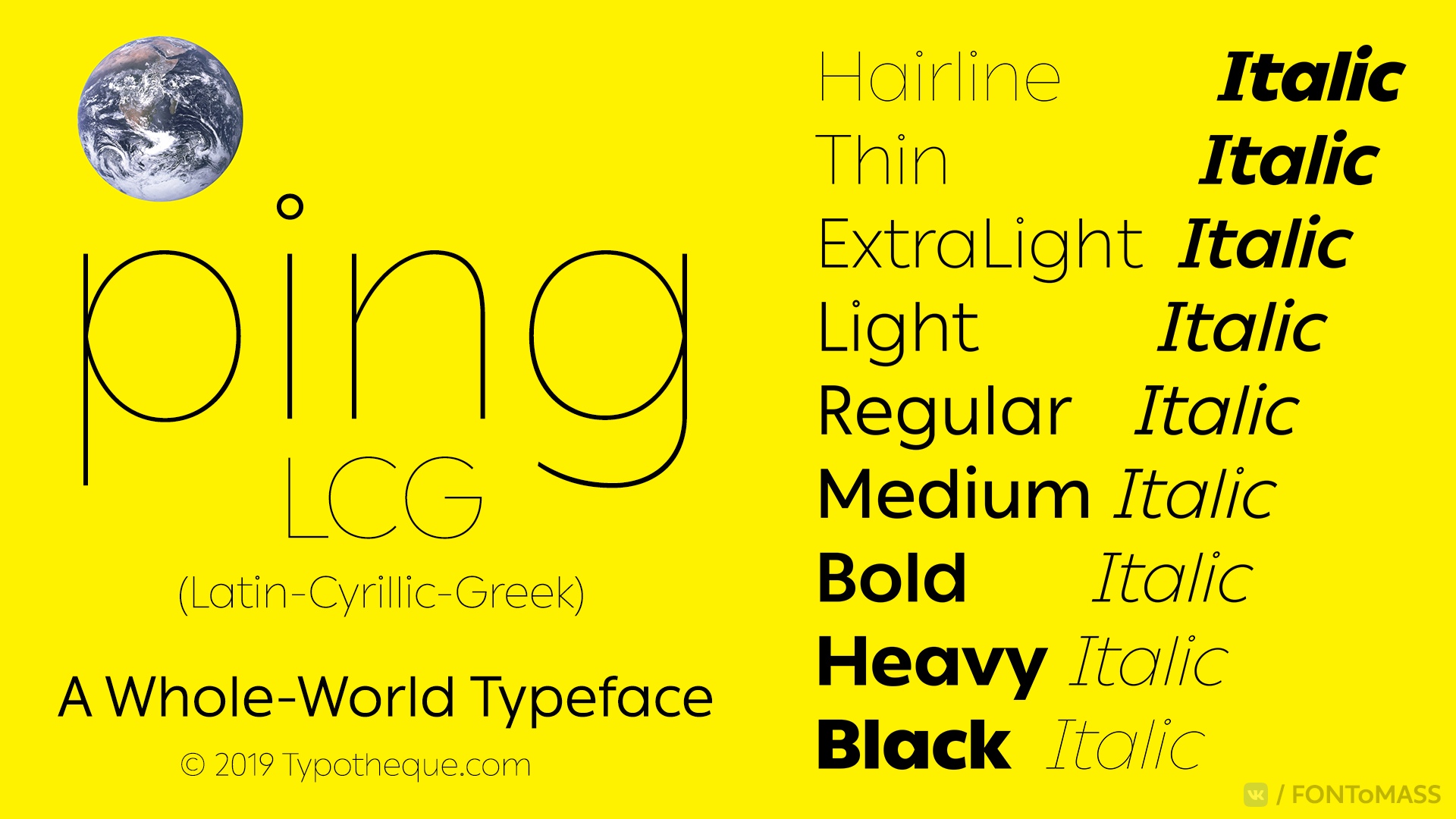
Ping LCG Font
Ping LCG Font is perfect for tech startups, gaming brands, digital interfaces, software applications, esports logos, coding environments, mobile app design, futuristic branding, interactive media, and cutting-edge technology communications.
Ping LCG Font is exciting because it captures the essence of digital innovation with its sharp, precise letterforms and high-tech aesthetic that perfectly embodies the fast-paced world of modern technology and gaming culture. Its dynamic character design combines technical precision with digital energy, making it ideal for brands that want to communicate speed, accuracy, and technological excellence.
The Ping LCG Font family includes Light, Regular, Medium, Bold, Extra Bold weights, matching Italic variations, Mono versions, Display styles, Tech alternates, and Digital elements, providing designers with comprehensive tools for creating modern technology brands that resonate with digital-native audiences and gaming communities.
Whether you're launching gaming platforms, developing software brands, creating esports identities, or designing tech product interfaces, Ping LCG Font provides the digital foundation needed for authentic technology communication. Its high-tech character makes it particularly effective for gaming companies, software developers, tech startups, and digital service providers targeting millennial and Gen Z demographics.
Perfect for UX designers, game developers, tech marketers, and digital brand strategists, this font offers the technological appeal essential for successful digital brand positioning. The typeface's systematic design ensures optimal performance across gaming platforms, mobile devices, and high-definition displays.
Ping LCG Font includes comprehensive technical character sets, optimized screen rendering, and precision spacing that guarantees superior performance in digital technology applications. Its forward-thinking approach to digital typography makes it indispensable for brands shaping the future of technology. Level up your digital presence with Ping LCG Font Free Download and create typography that truly connects with the digital generation.